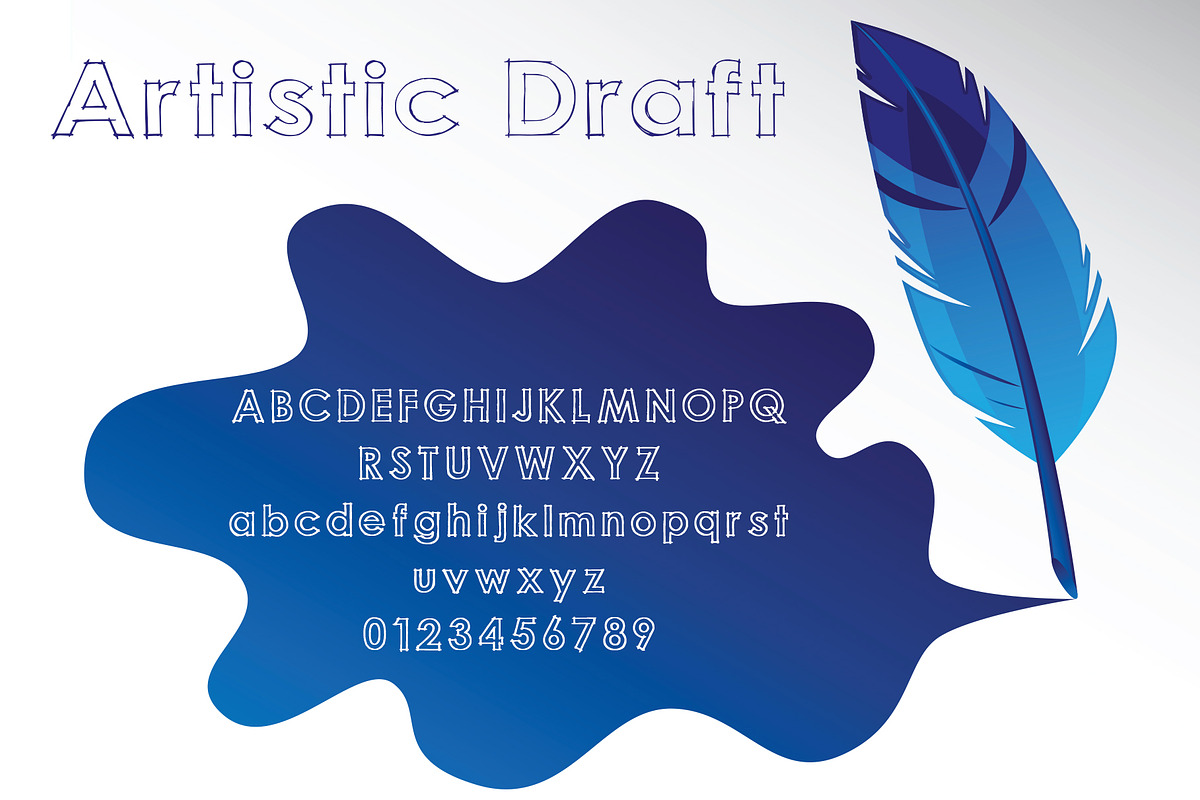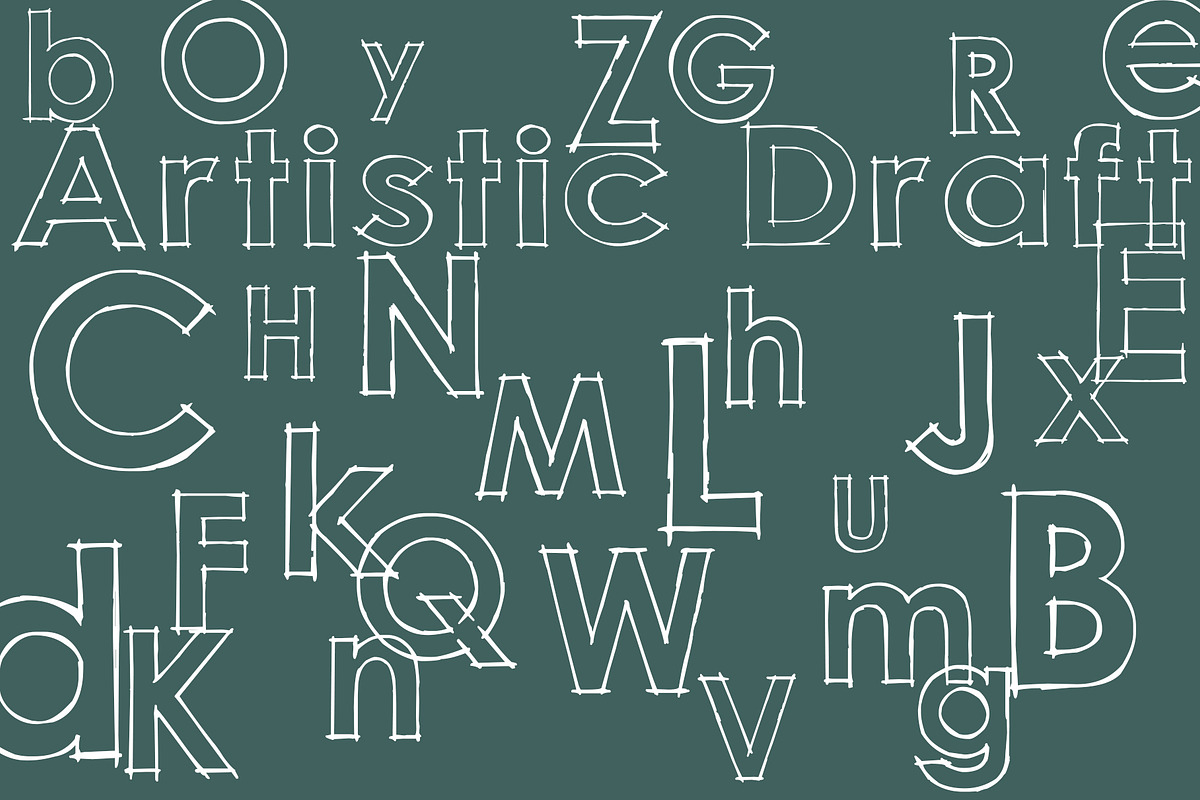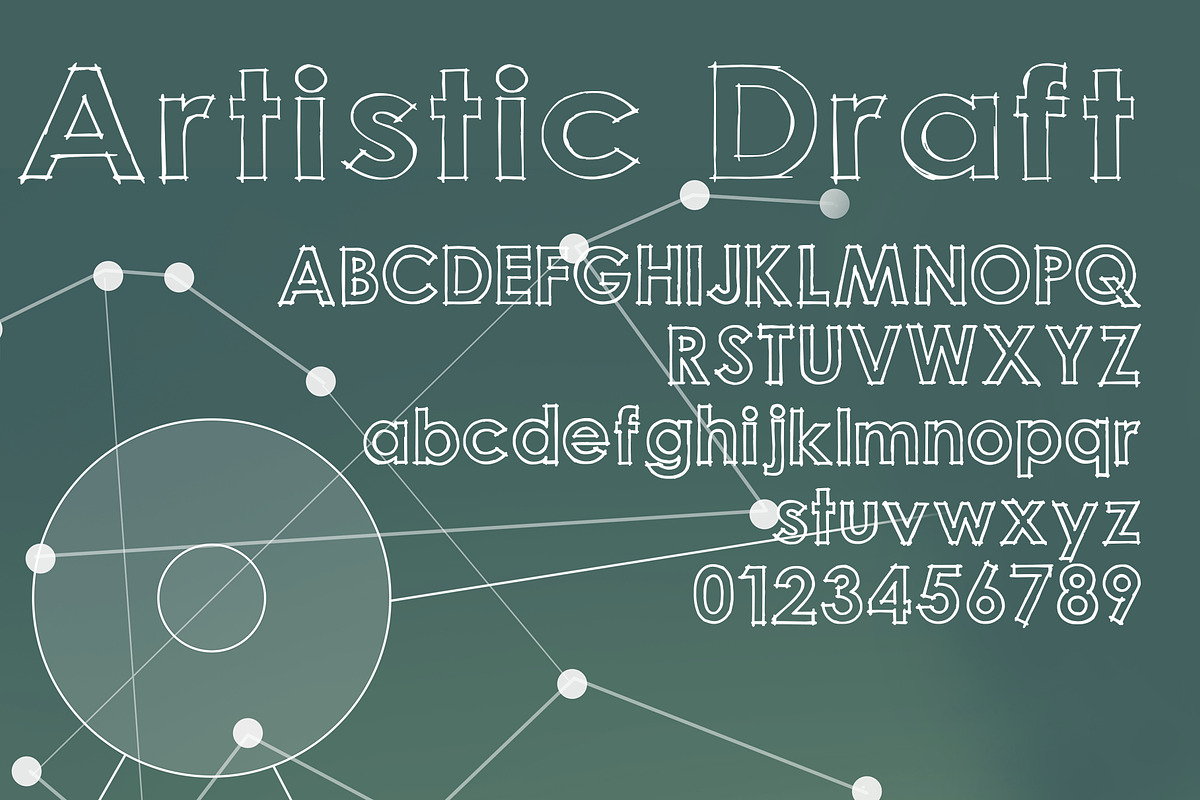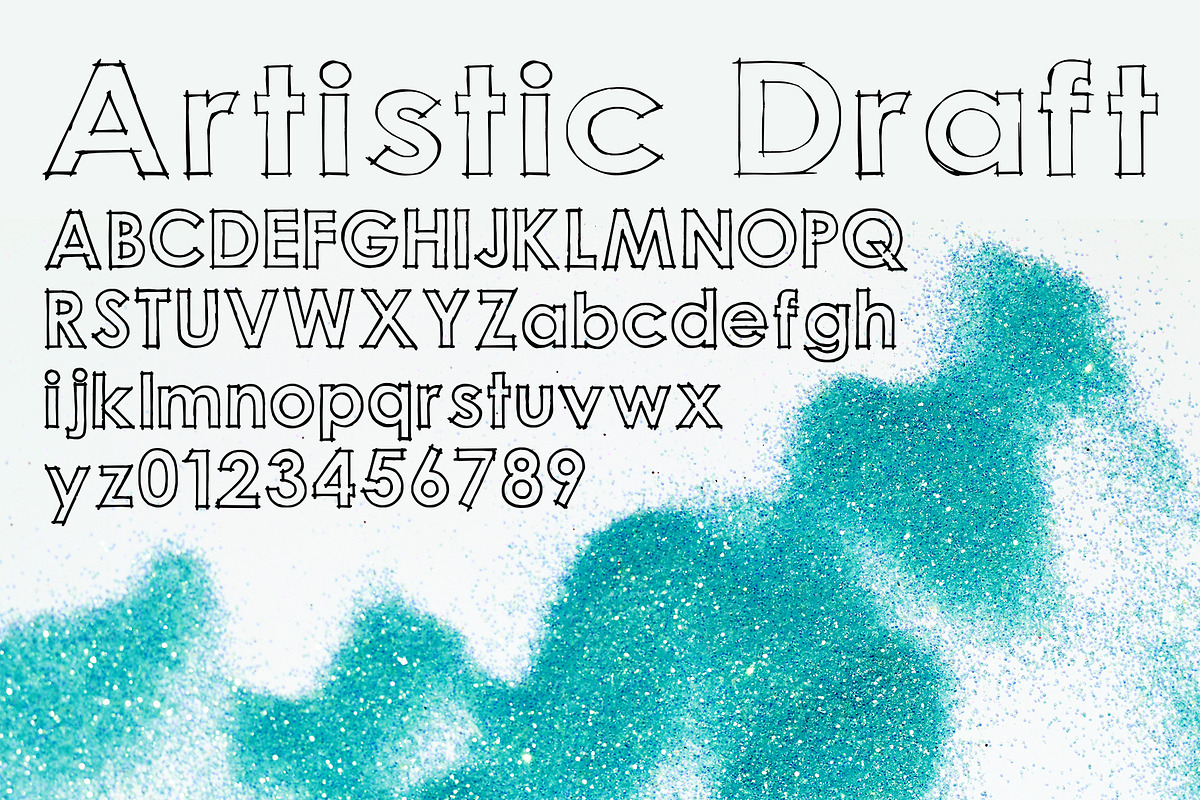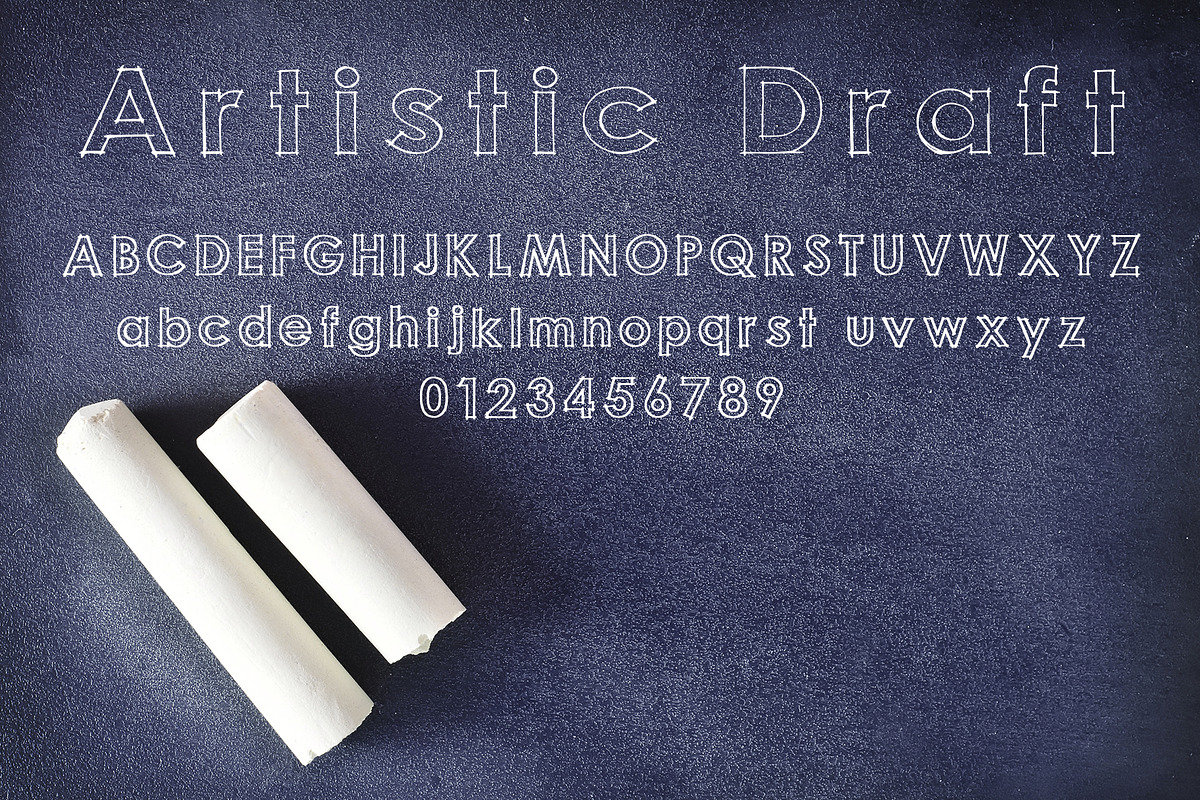
Artistic Draft
The Artistic Draft font gets it's name from it's sketch style lettering used in architecture drawings. Due to the fine outline of this font it is best used for larger size graphics. Perfect for T-shirts, post cards, signs and anything that requires that artistic touch.
This font currently has the basic characters including uppercase and lowercase alphabet and numbers. More characters will be added soon.